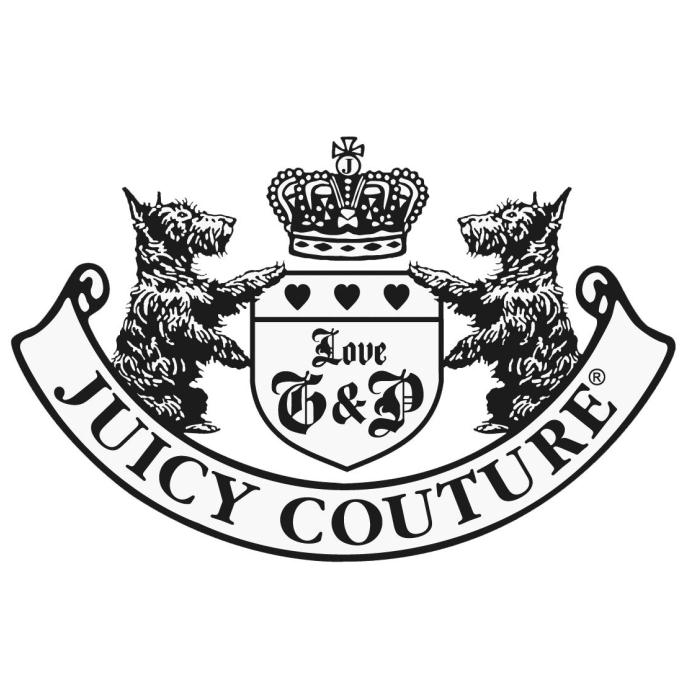
Juicy Couture Font
ApparelJuicy Couture is a fashion brand that was founded in 1997 by Pamela Skaist-Levy and Gela Nash-Taylor. The brand is known for its trendy and fashionable clothing and accessories, particularly its velour tracksuits, which became a popular fashion trend in the 2000s.
Juicy Couture clothing bears the brand's distinctive logo, which features two Highland Terriers carrying a shield with the words Love P & G (for the founders Pamela and Gela) with a crown on top of it and a flowing banner. Two fonts are used for the brand's logo lettering; the “Juicy Couture” part is probably set in Original Garamond BT Bold by Gayaneh Bagdasaryan, and the “Love P&G” part is written in Agincourt by David Quay.